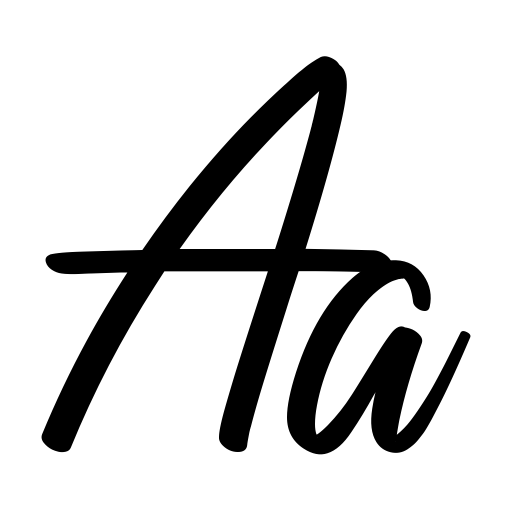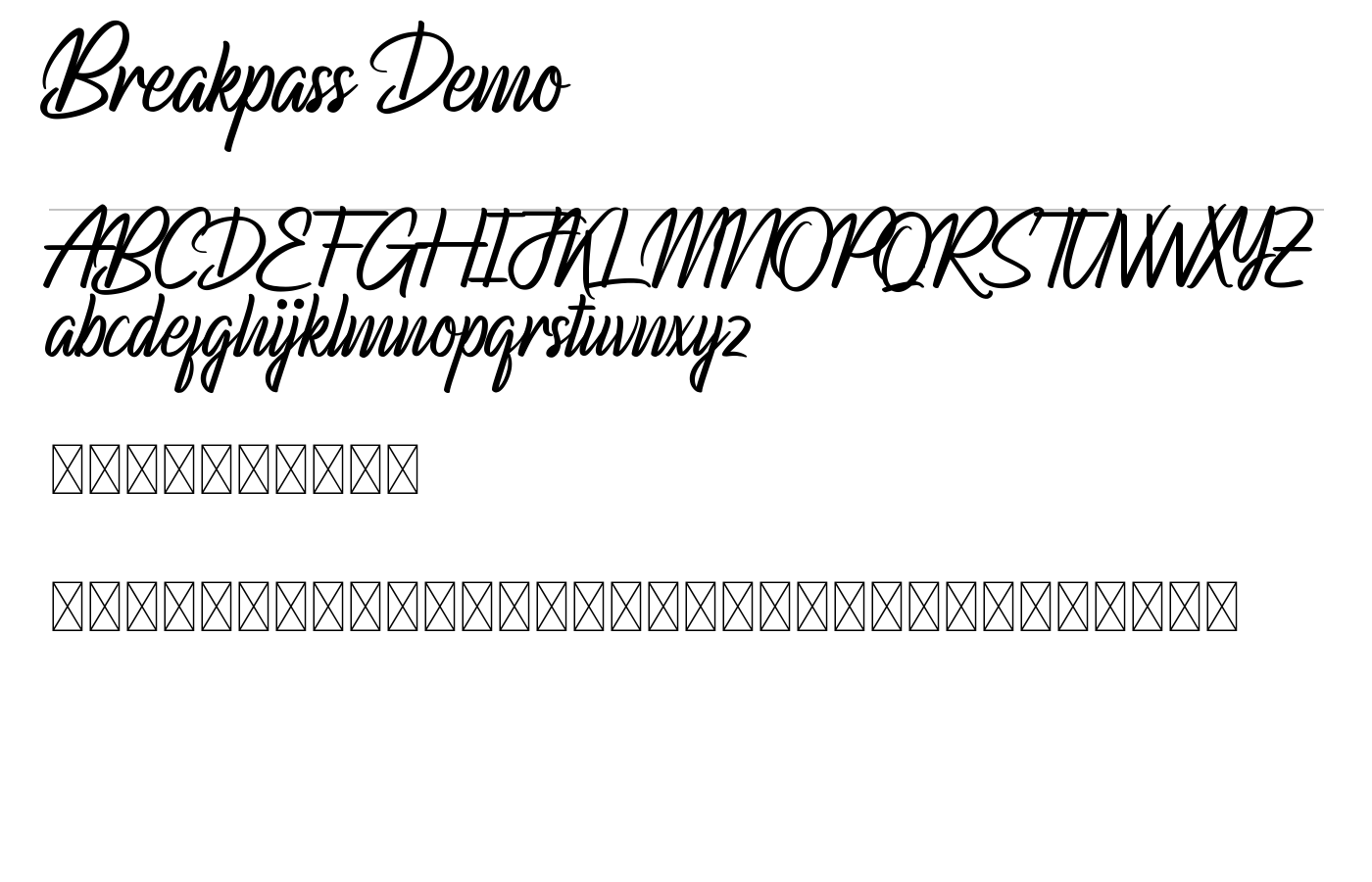
Breakpass Demo is a lively and elegant script font with a handwritten feel, featuring fluid, connected letterforms and consistent medium weight strokes. Its tall x-height and smooth curves lend it a modern yet personal touch, making it ideal for branding, invitations, and stylish headlines where a warm and approachable tone is desired. This font works best in creative and casual contexts, adding charm and sophistication to any design.
Breakpass Demo Font
About Breakpass Demo Font
| Font family | Breakpass Demo Font |